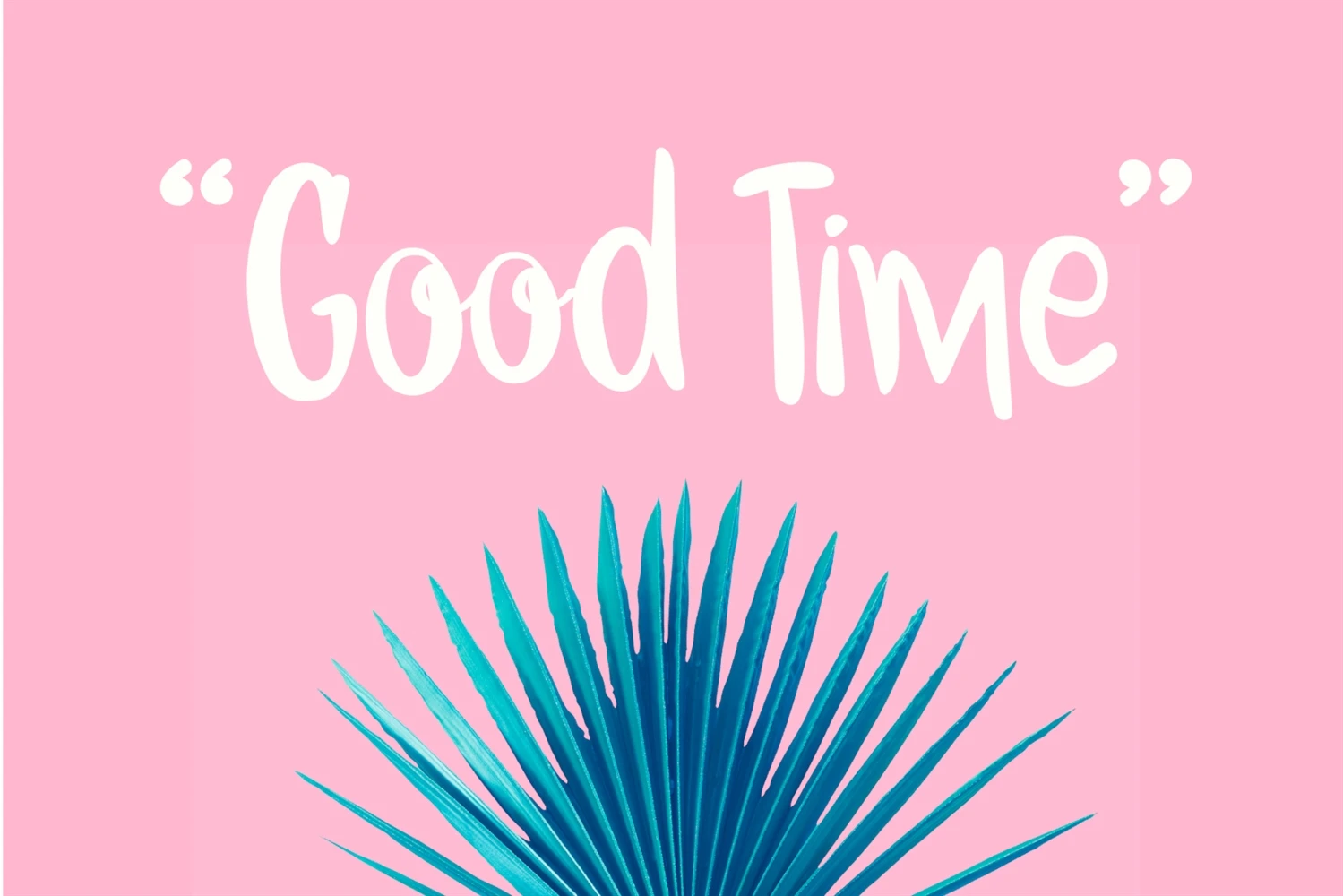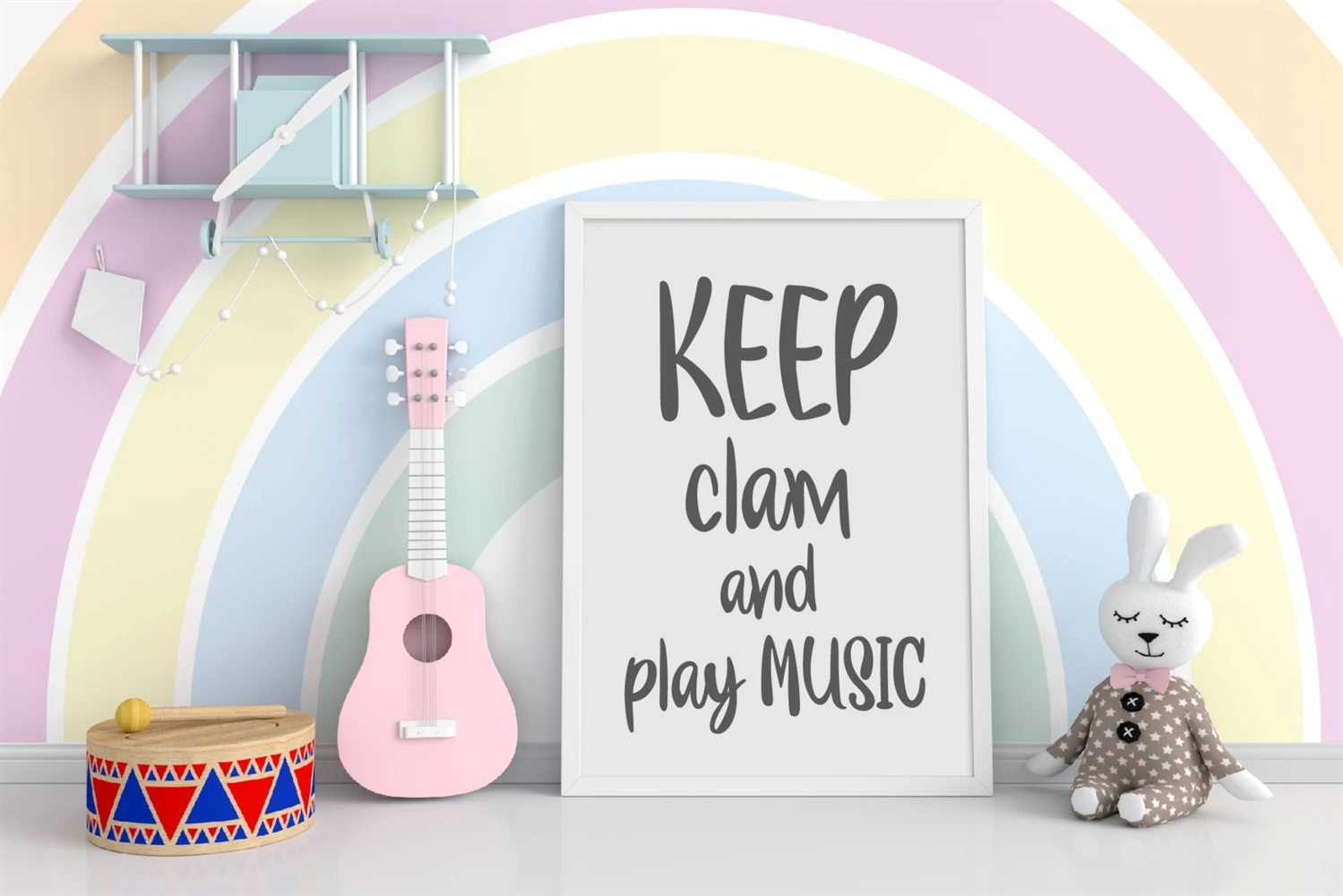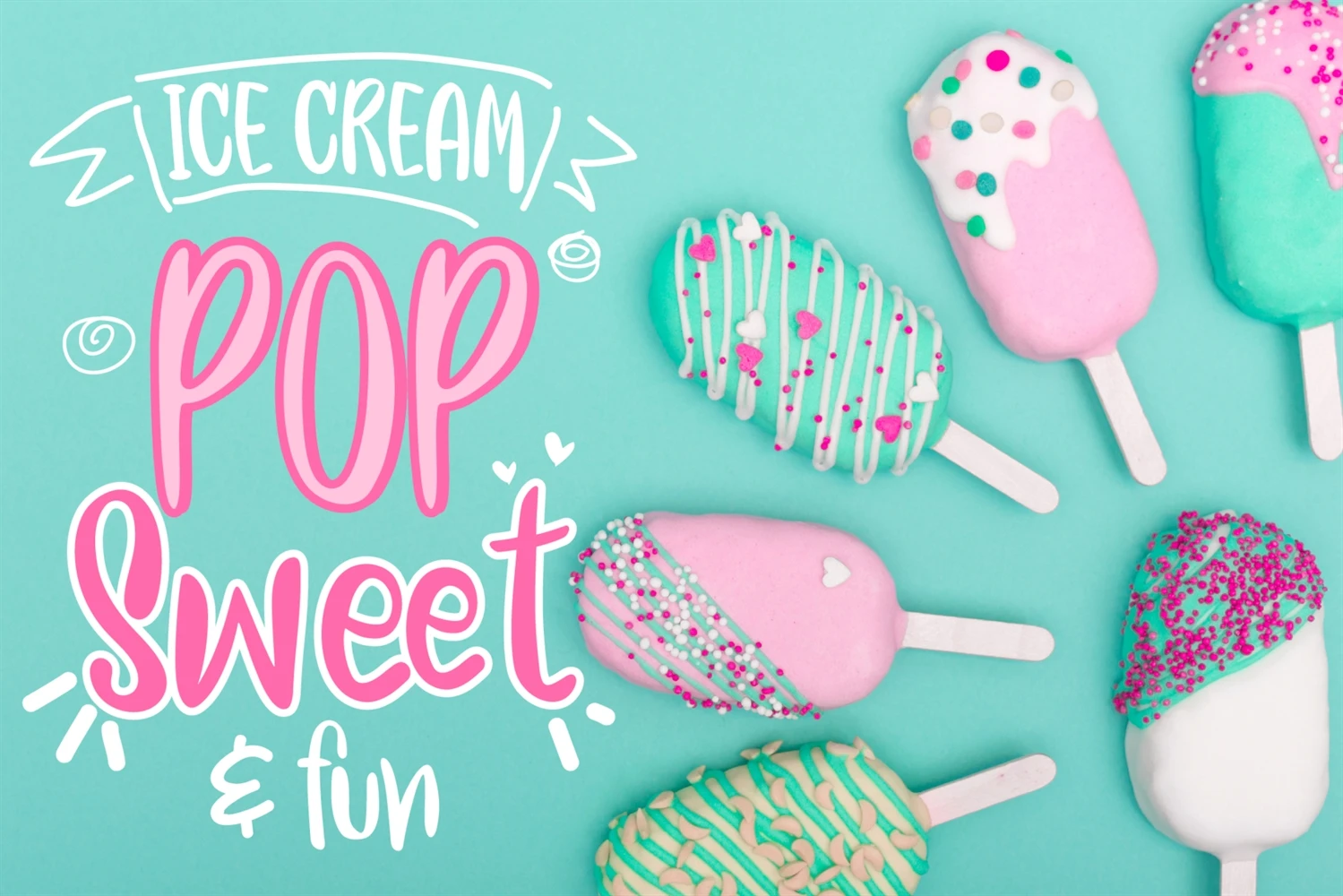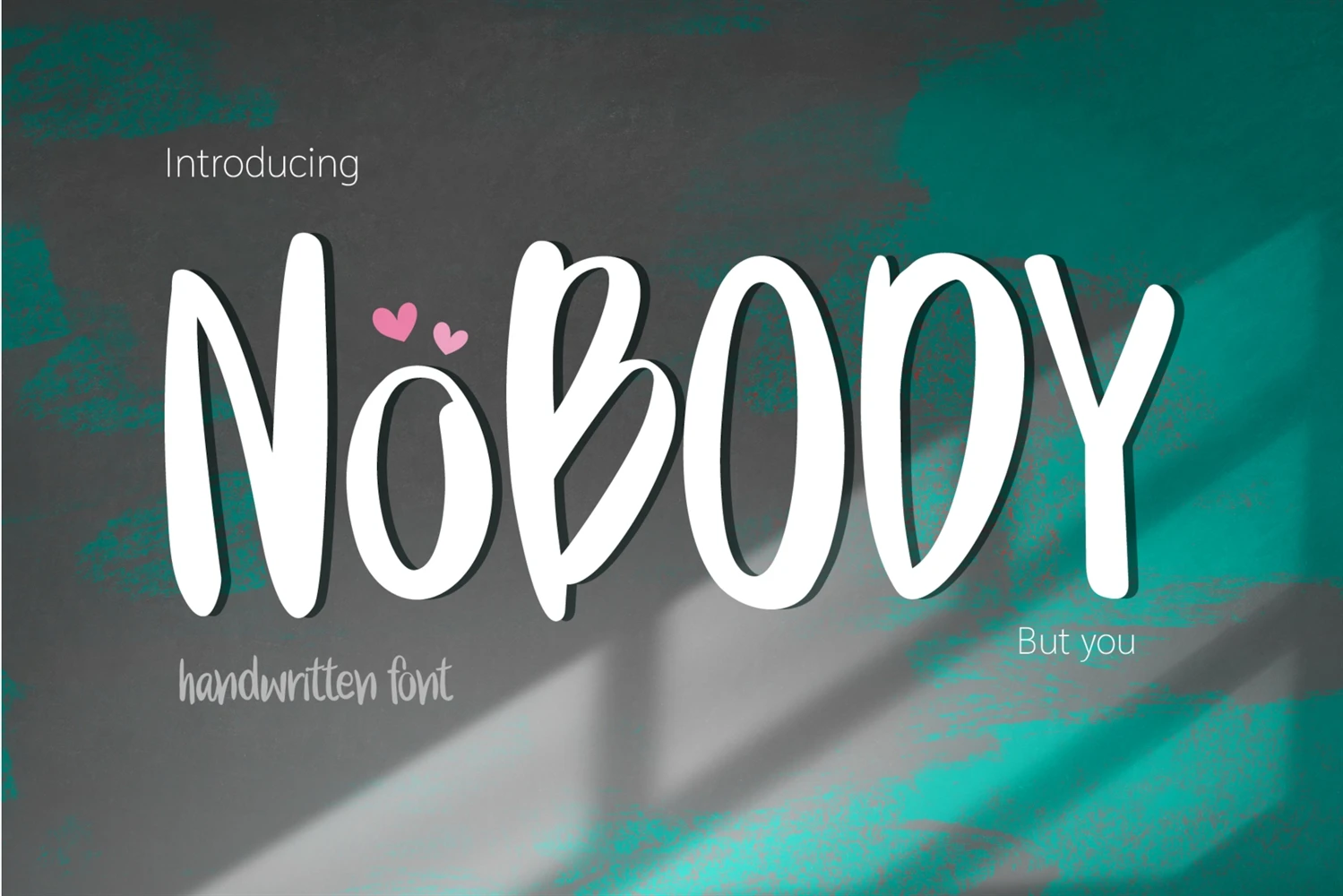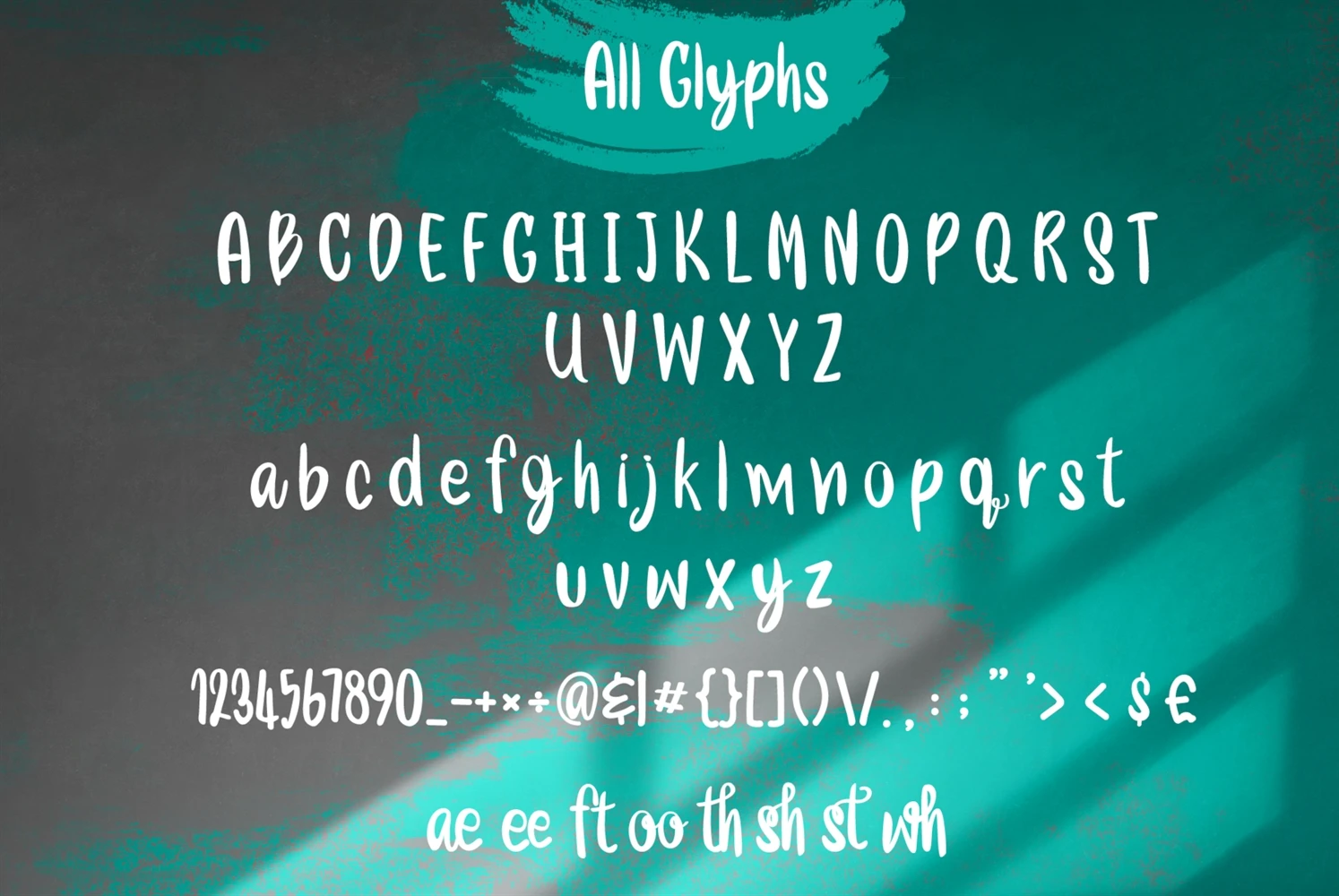
Nobody is a cute and quirky handwritten font. Its natural and unique style makes it incredibly fitting to a large pool of designs. The only limit is your imagination!